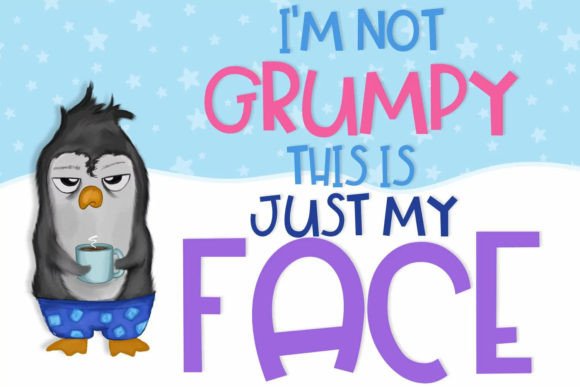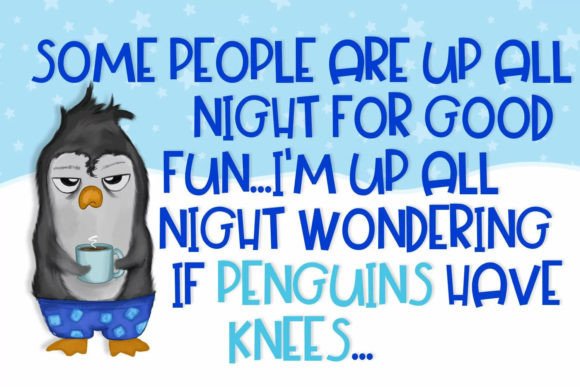
Introducing the Grumpy Penguin Font: Add a Touch of Whimsy to Your Designs
Are you tired of using the same old fonts in your designs? Look no further than the Grumpy Penguin Font, a blocky handwritten font with a unique look and feel that’s sure to make your projects stand out. In this article, we’ll take a closer look at the Grumpy Penguin Font, its features, and how you can use it to add a touch of whimsy to your designs.
What is the Grumpy Penguin Font?
The Grumpy Penguin Font is a one-of-a-kind font that’s perfect for crafters, designers, and anyone looking to add a bit of personality to their projects. This blocky handwritten font features a distinctive look that’s reminiscent of a penguin’s rugged yet adorable exterior. With its chunky letters and playful vibe, the Grumpy Penguin Font is sure to bring a smile to anyone’s face.
Features of the Grumpy Penguin Font
So, what makes the Grumpy Penguin Font so special? Here are just a few of its key features:
- Blocky Handwritten Style: The Grumpy Penguin Font features a unique blocky handwritten style that’s perfect for creating eye-catching designs.
- Unique Look and Feel: This font has a distinctive look and feel that’s sure to set it apart from other fonts.
- Perfect for Crafting: The Grumpy Penguin Font is ideal for use with cutting machines, making it perfect for crafters who want to create custom projects.
- Versatile: This font can be used for a wide range of projects, from water bottles and stickers to decals and more.
How to Use the Grumpy Penguin Font
Using the Grumpy Penguin Font is easy! Here are a few ideas to get you started:
- Water Bottles: Add a touch of personality to your water bottles with custom labels featuring the Grumpy Penguin Font.
- Stickers: Create custom stickers with the Grumpy Penguin Font that are perfect for laptops, water bottles, or any other surface.
- Decals: Use the Grumpy Penguin Font to create custom decals for your car, laptop, or other surfaces.
- Crafting Projects: The Grumpy Penguin Font is perfect for use with cutting machines, making it ideal for crafters who want to create custom projects like signs, banners, and more.
Why Designers and Crafters Love the Grumpy Penguin Font
So, why do designers and crafters love the Grumpy Penguin Font? Here are just a few reasons:
- Unique Style: The Grumpy Penguin Font offers a unique style that’s sure to make your designs stand out.
- Easy to Use: This font is easy to use and can be incorporated into a wide range of designs.
- Versatile: The Grumpy Penguin Font can be used for a wide range of projects, from crafting to commercial design.
- Fun: Let’s face it – the Grumpy Penguin Font is just plain fun! It’s perfect for designers and crafters who want to add a bit of whimsy to their projects.
In conclusion, the Grumpy Penguin Font is a unique and versatile font that’s perfect for designers and crafters who want to add a touch of personality to their projects. With its blocky handwritten style and distinctive look and feel, this font is sure to make your designs stand out. Whether you’re creating custom water bottles, stickers, decals, or crafting projects, the Grumpy Penguin Font is the perfect choice. So why wait? Download the Grumpy Penguin Font today and start creating adorable projects that are sure to bring a smile to anyone’s face!